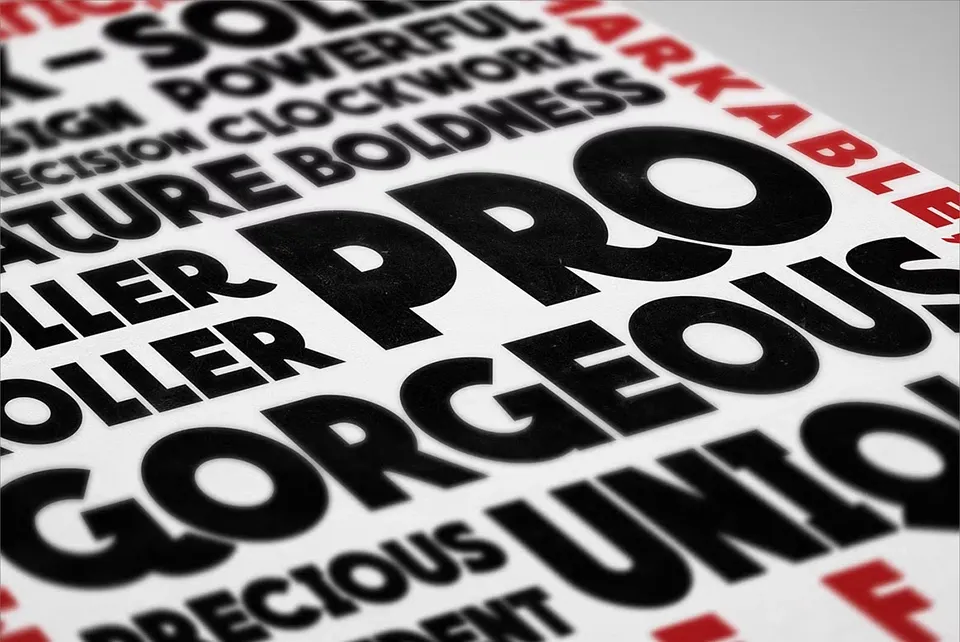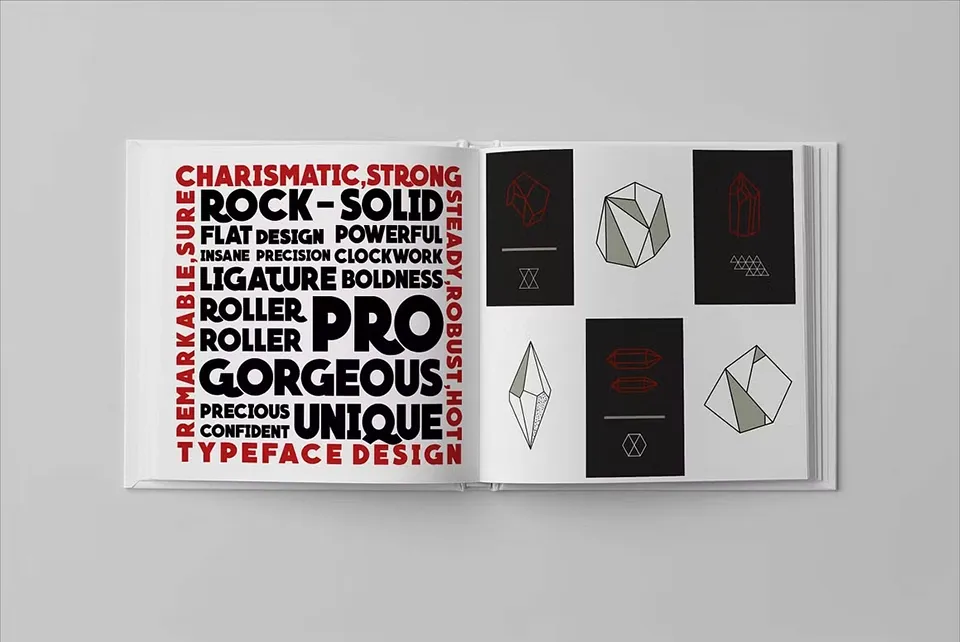
Quartzo Font
The Quartzo Font font is a bold, geometric sans-serif typeface designed for display and headlines. It features three weights-bold, regular, and light-and stands out for its strong all-caps style, advanced kerning, and unique ligatures. With high legibility and precision, QUARTZO is ideal for posters, branding, web titles, and magazine headlines, offering a professional and impactful presence for creative projects.